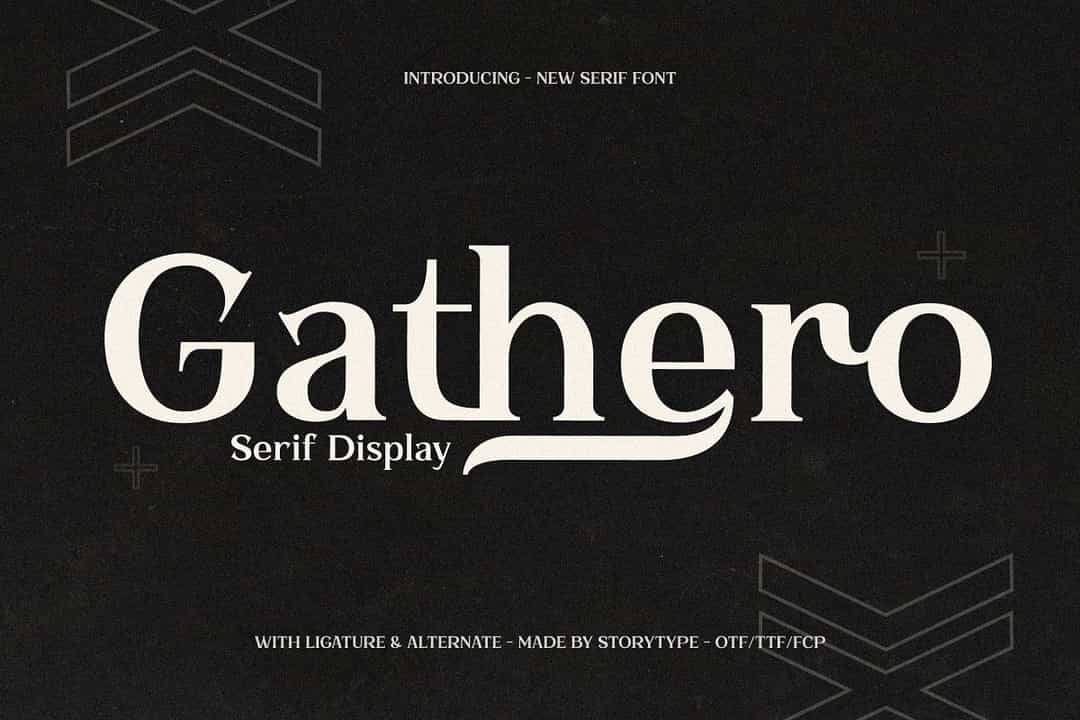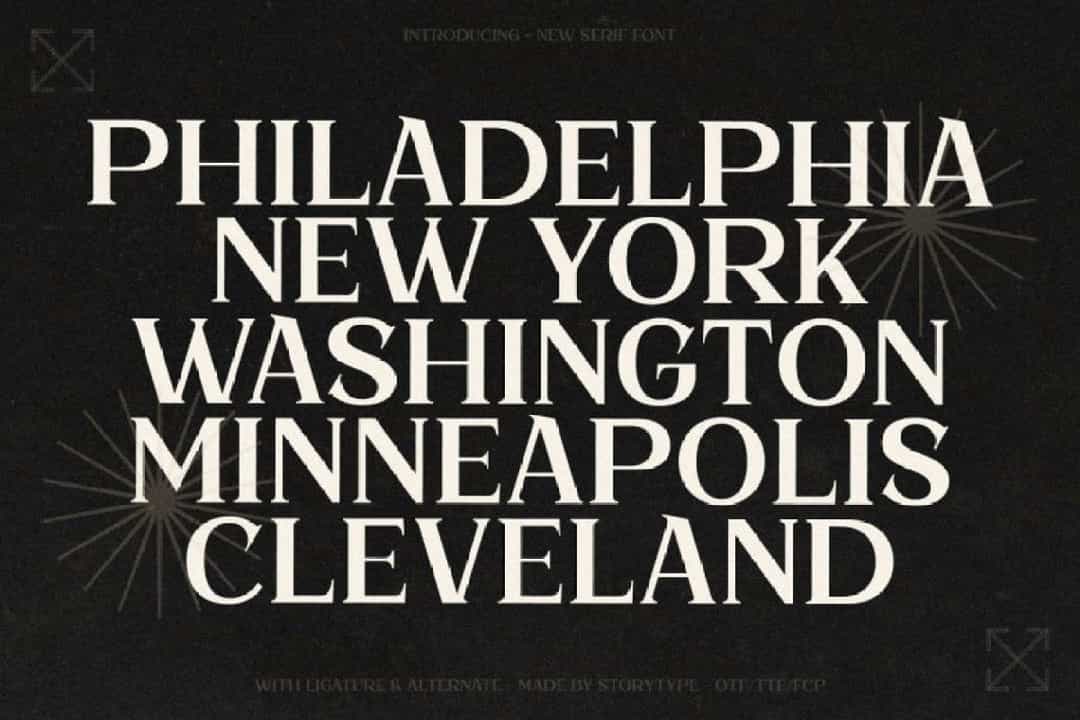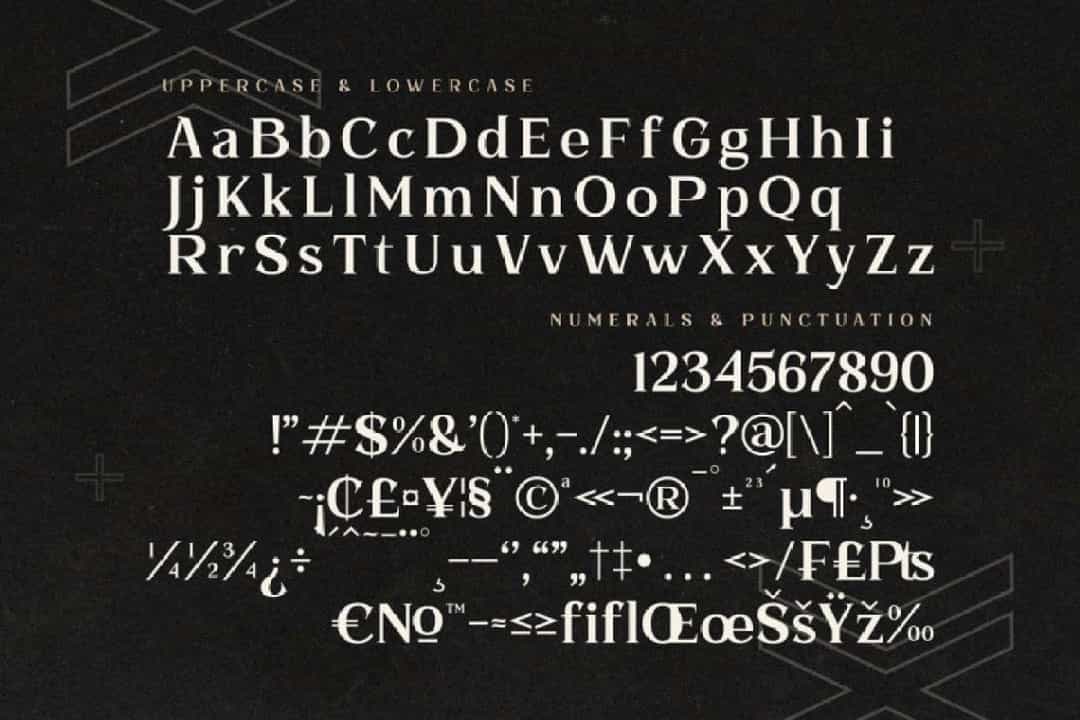
Gathero is a modern and timeless display serif font with its own distinct style and contemporary appearance, perfect for creating luxurious logos, movie or book styles, fashion label clothing stores magazines letters quotes and much more. This font also makes an eye-catching display.